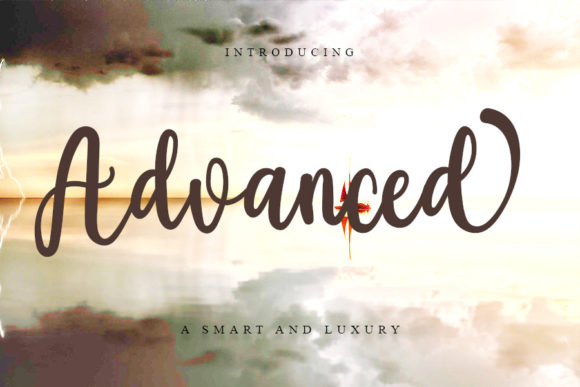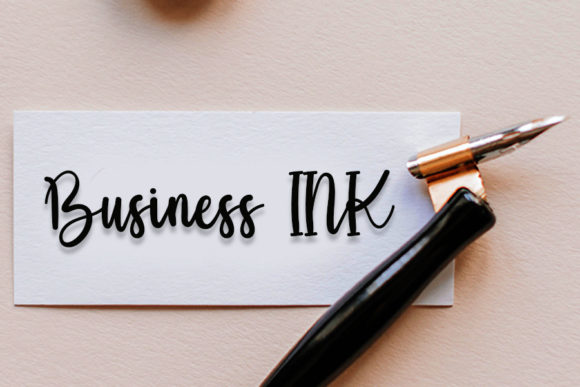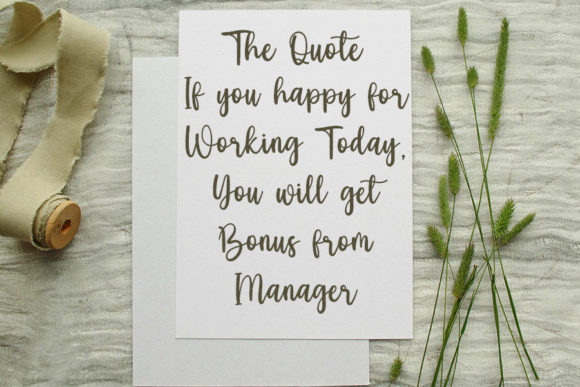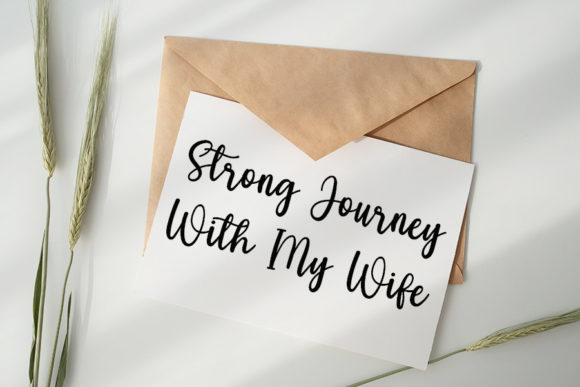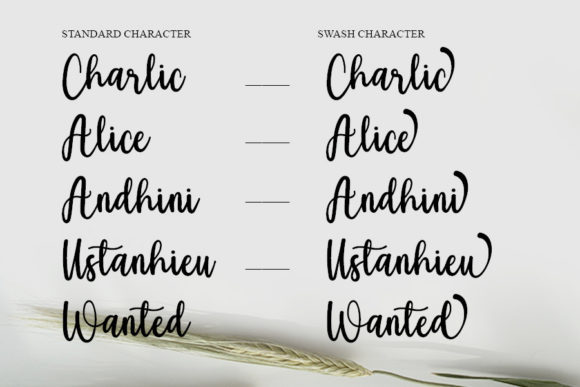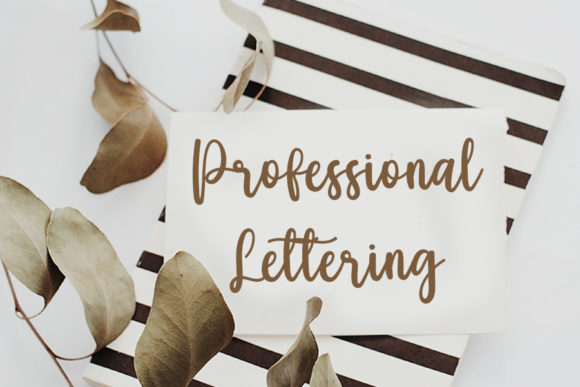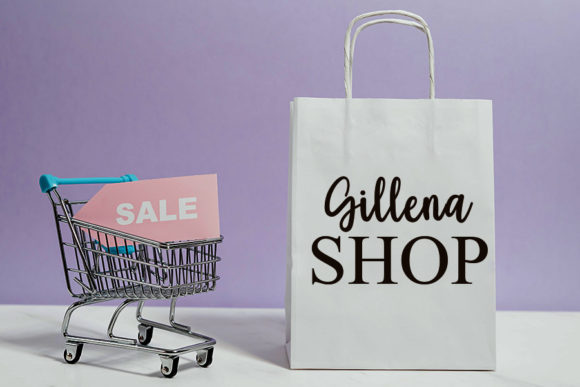
Advanced Font
About Advanced Font
Advanced is a beautiful and well rounded calligraphy font. It has a modern look that makes it perfect for branding, invitations, stationery, wedding designs, social media posts, and much more!